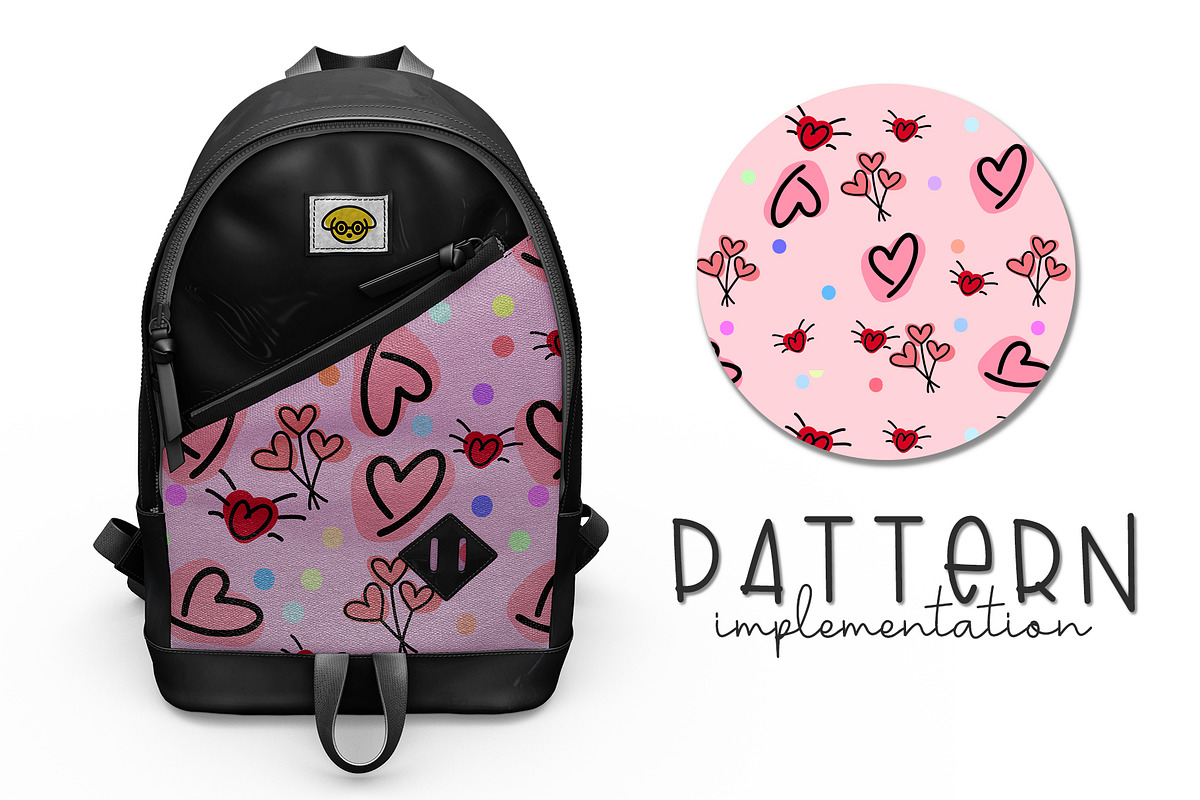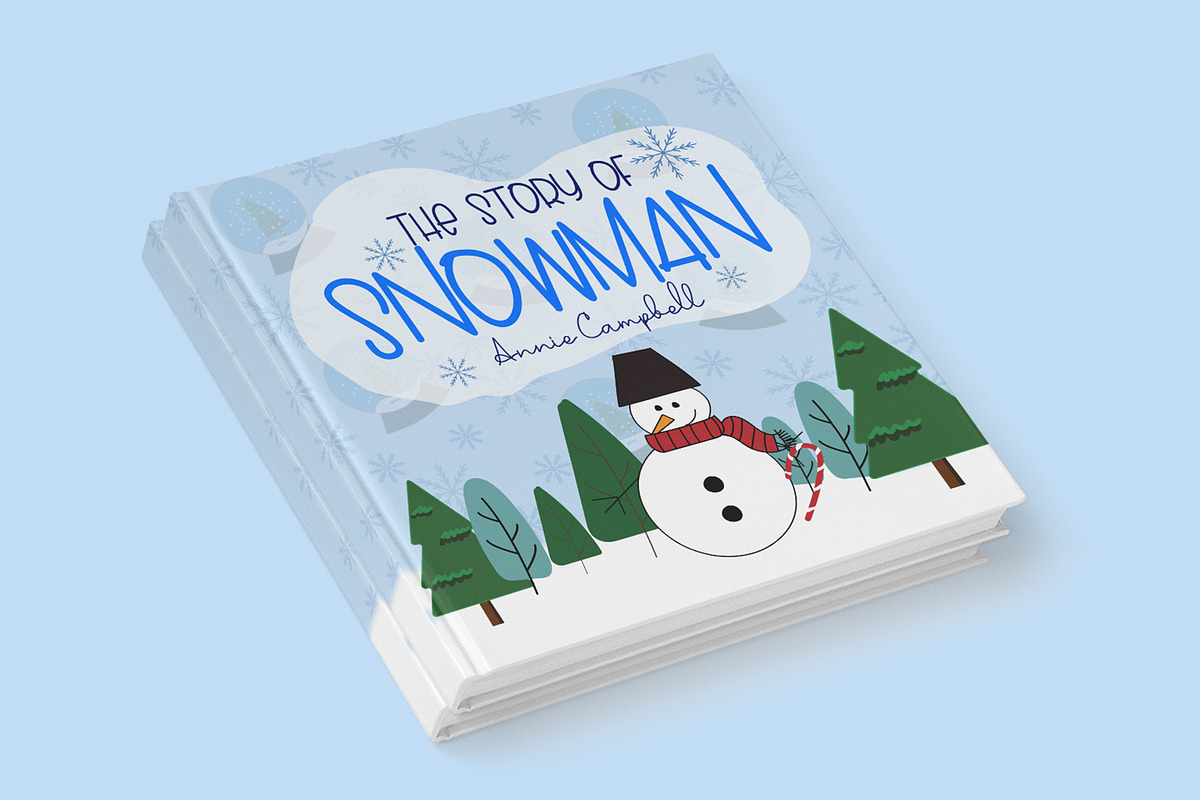
Lovely Puppy - Sweet Collection Set
Lovely Puppy, is a sweet collection of handwritten script and sans serif font duo, with a bunch of cute doodles and patterns. Be creative by mix and match the every element from this collection set, that made exclusively for you who loves to make something unique, childish, yet simple and clean style. Lovely Puppy can be use for personal or commercial projects. Great for quotes, logo, cover books, paper gifts, pillows, mugs, bags, web headers, etc.
- Lovely Puppy Sans Serif : All in Caps Characters, Numerals, Symbols & Punctuations.
- Lovely Puppy Script : Uppercases, Lowercase, Numerals, Symbols & Punctuations, ligatures.
- 52 cute doodles
- 6 cute seamless patterns